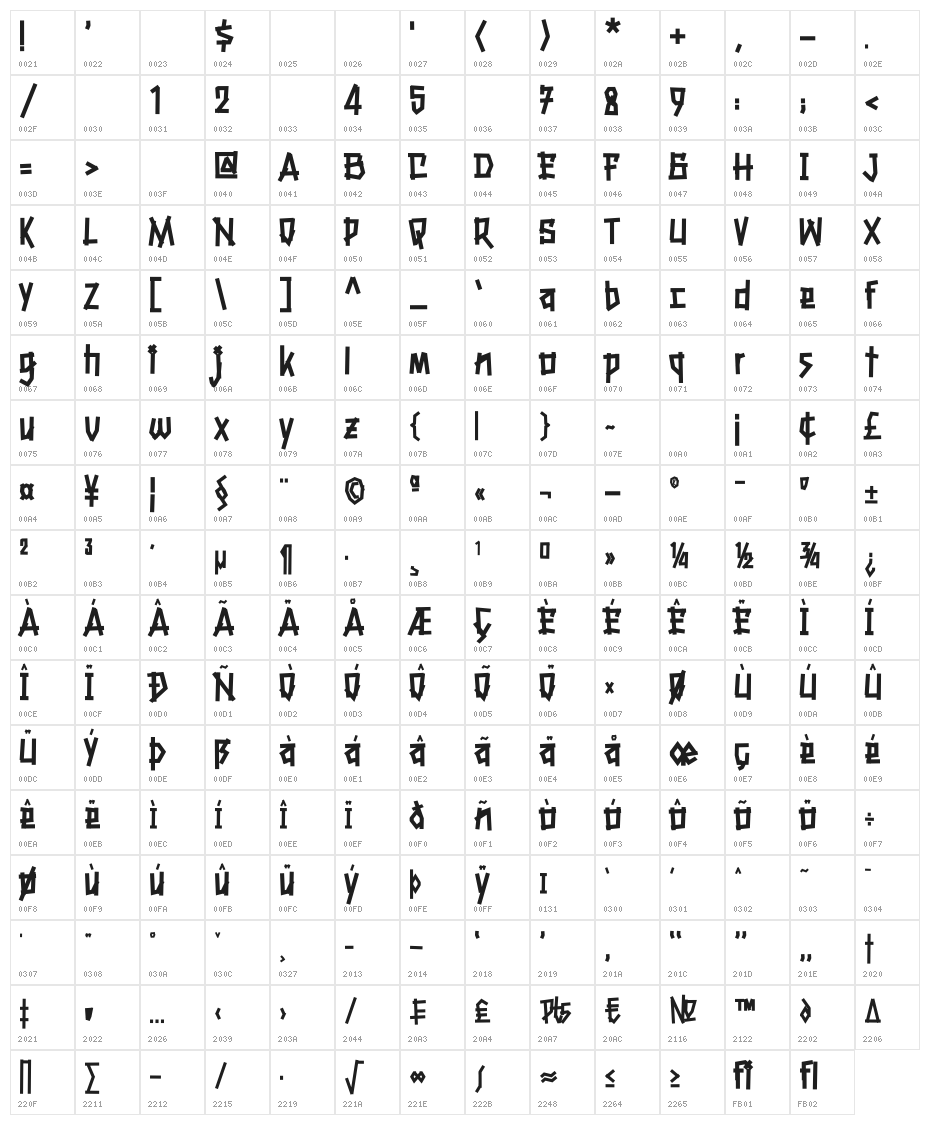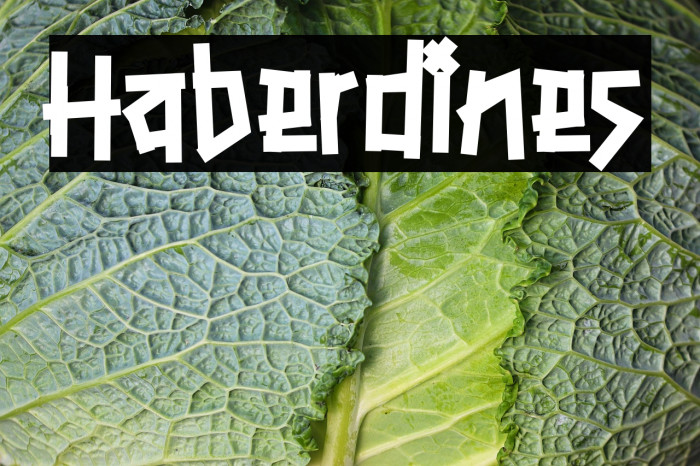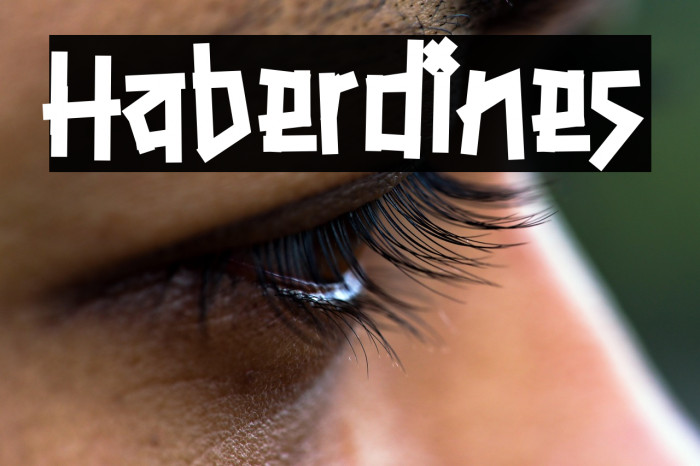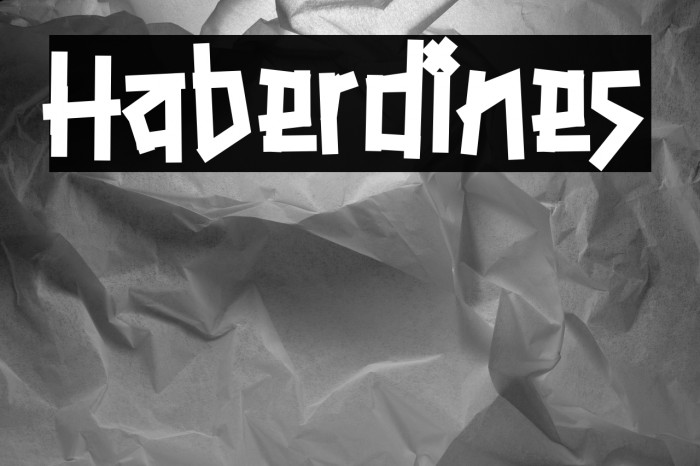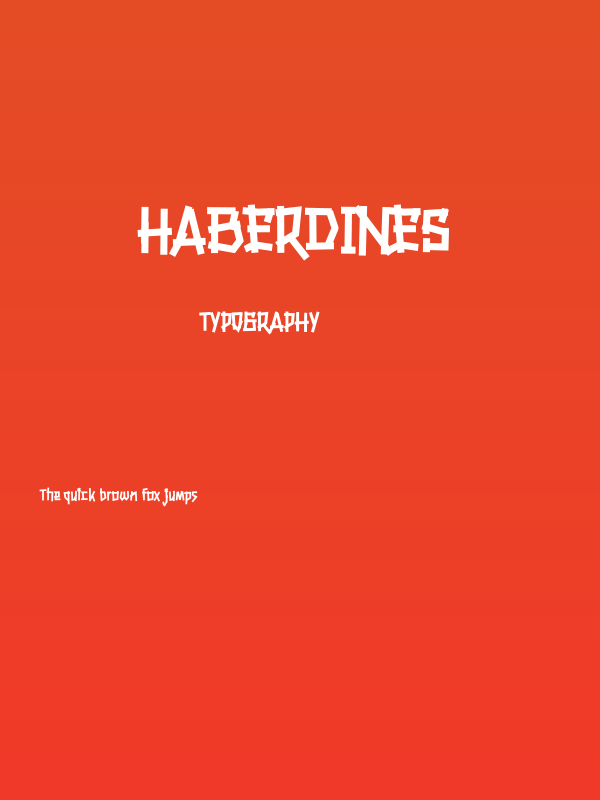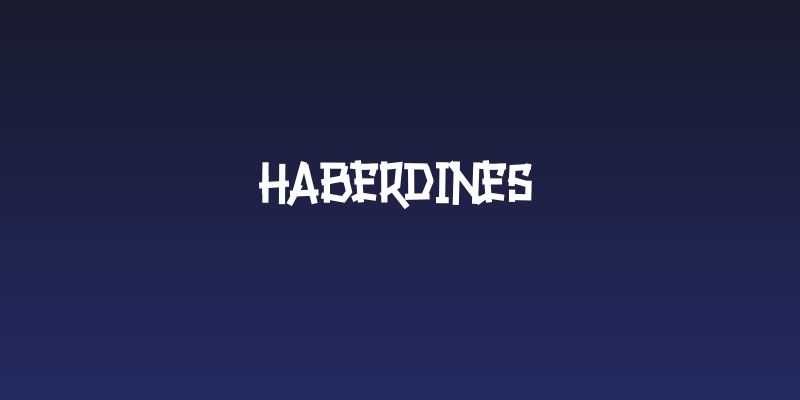
Haberdines Font
Haberdines Description
This font features a bold and edgy design with a distinctly angular appearance. The characters are constructed with sharp, jagged lines that give it a rugged, almost hand-drawn feel. The uppercase and lowercase letters maintain a consistent style, with exaggerated angles and a slightly irregular form that adds to its unique character. The numbers and special characters follow the same design principles, ensuring a cohesive look across all elements. This font's striking appearance makes it ideal for projects that require a bold statement.
| Proposed Projects | Ideal for posters, album covers, graffiti art, and edgy branding projects. |